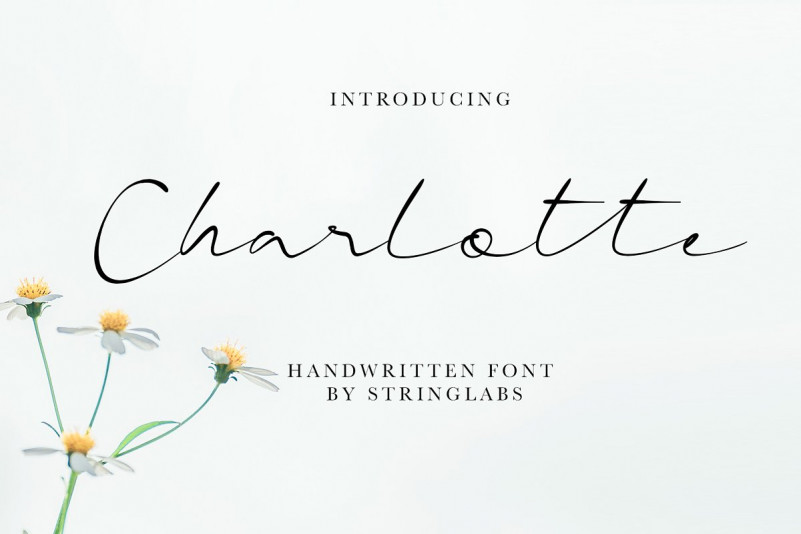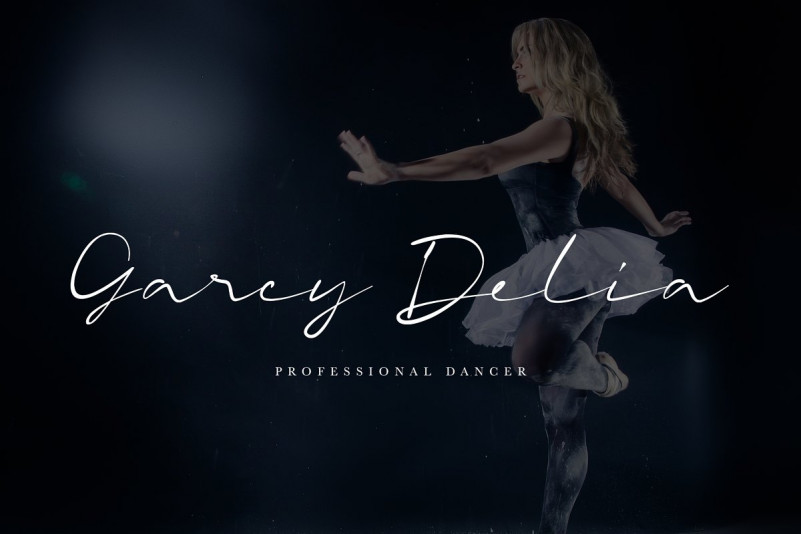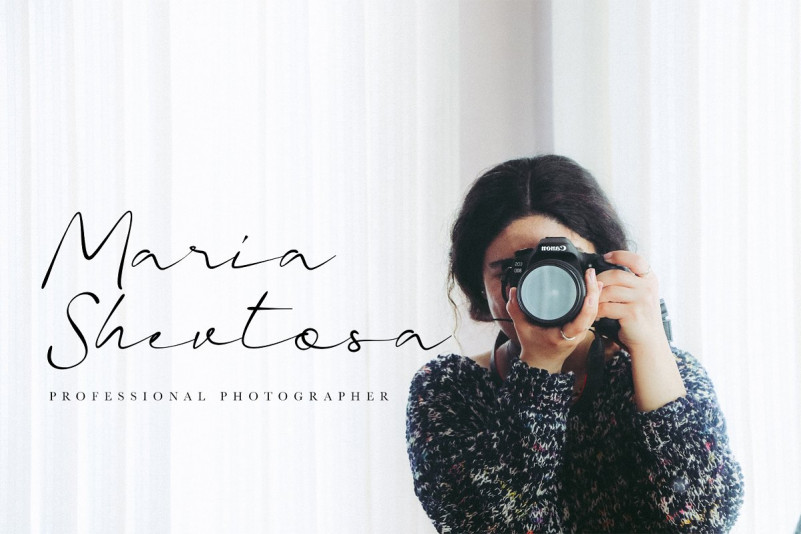
Charlotte Font
This Font can be used for any variety of purposes, such as: Signature, Photography, Wedding Ceremony, Invitation, Packaging, Logo Type, Branding Design, Fashion and also can be used for Business purpose.